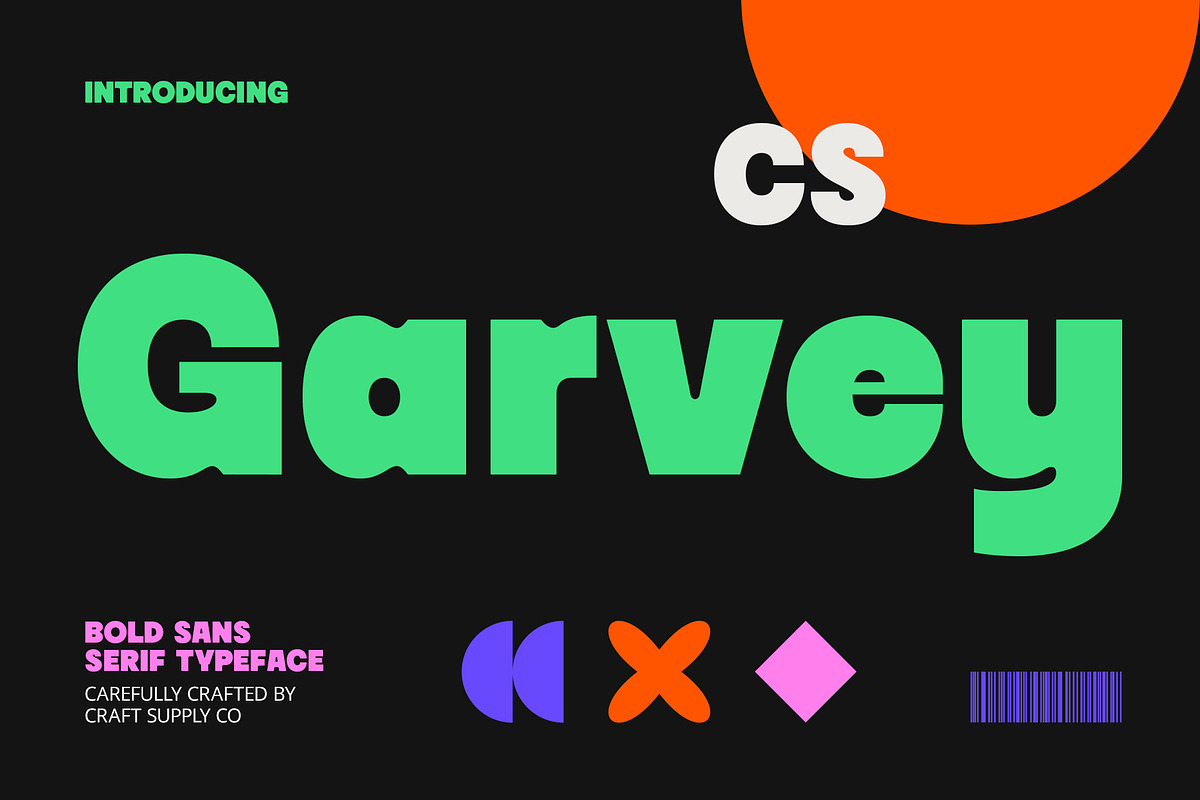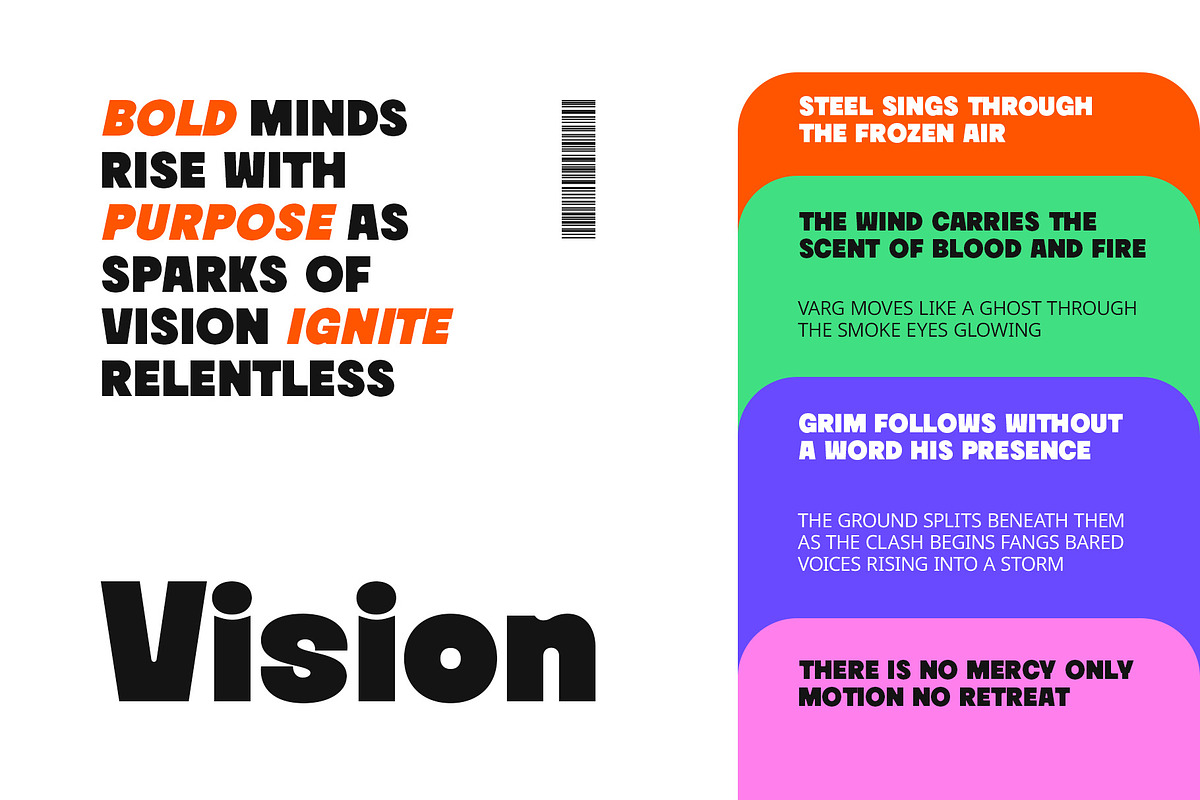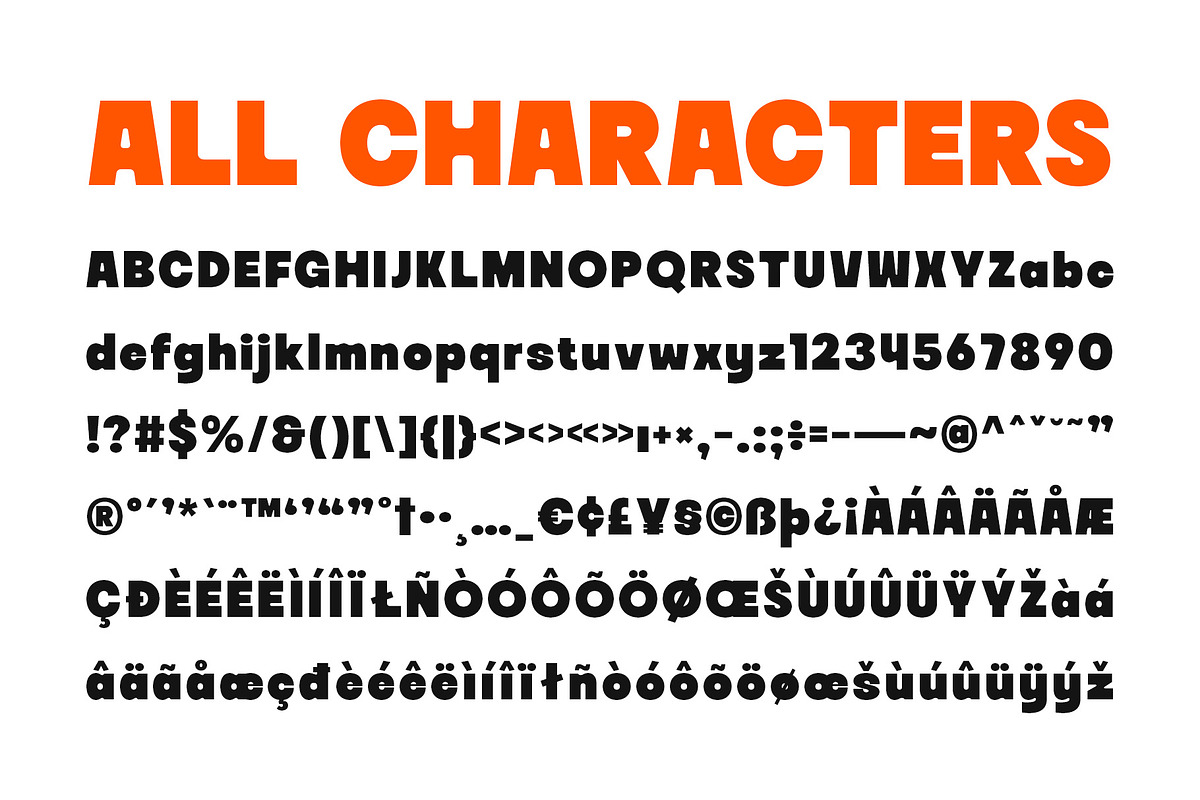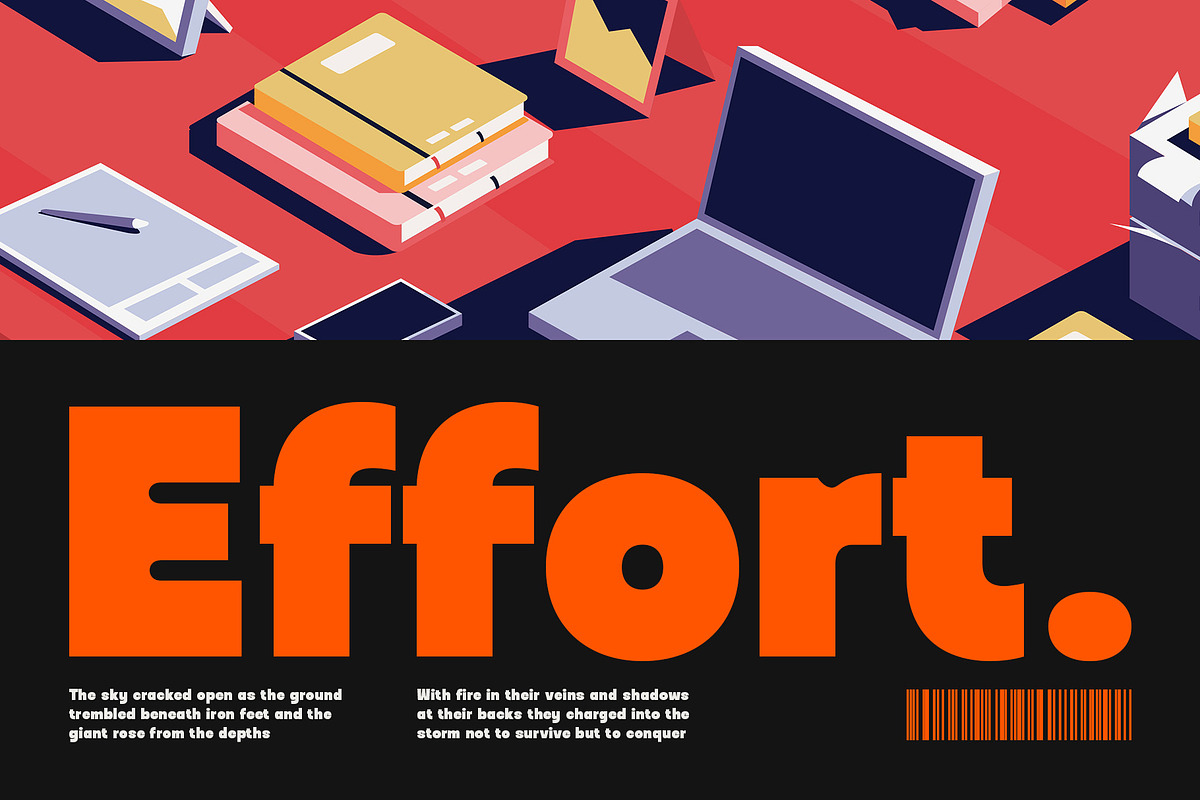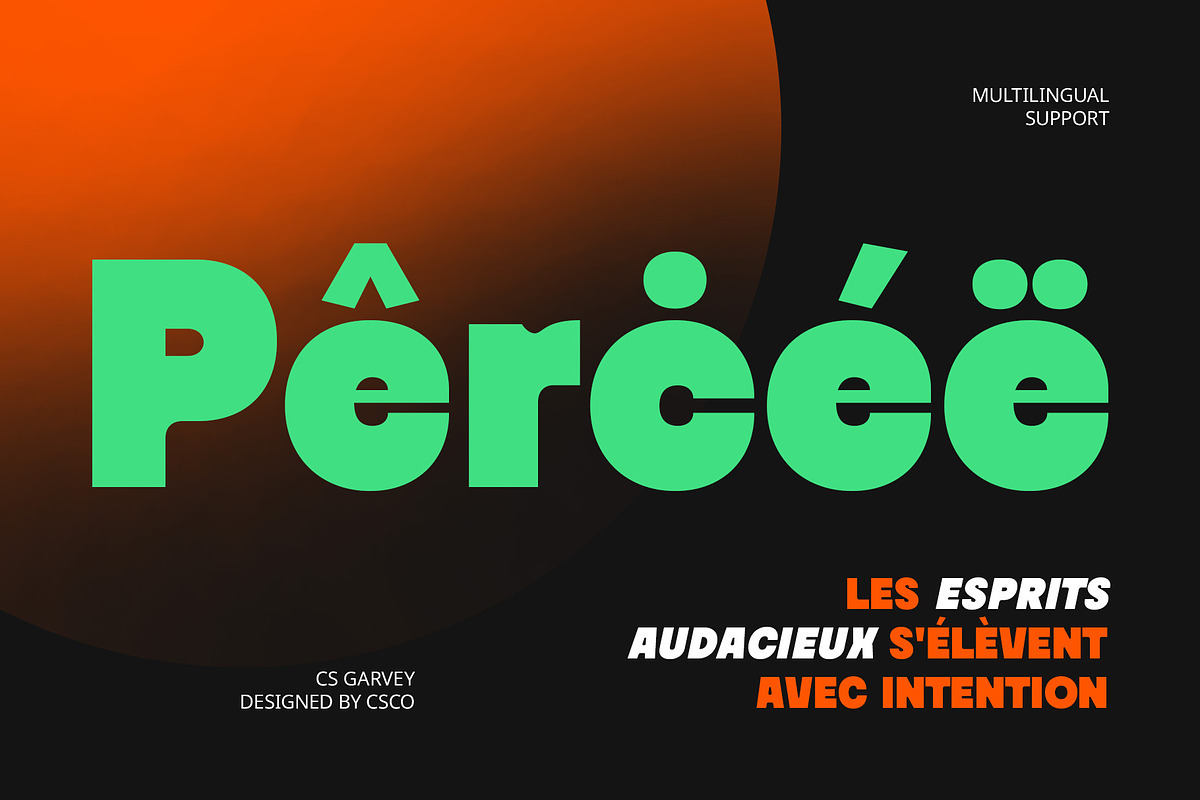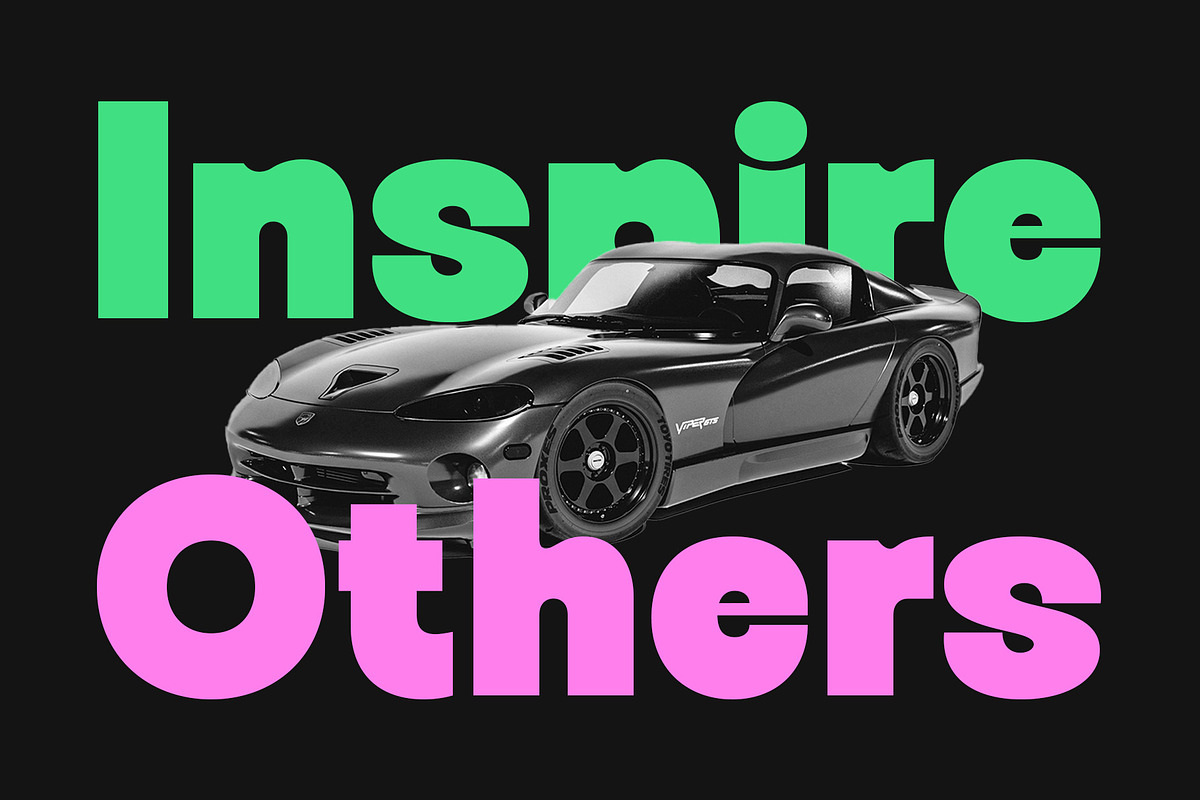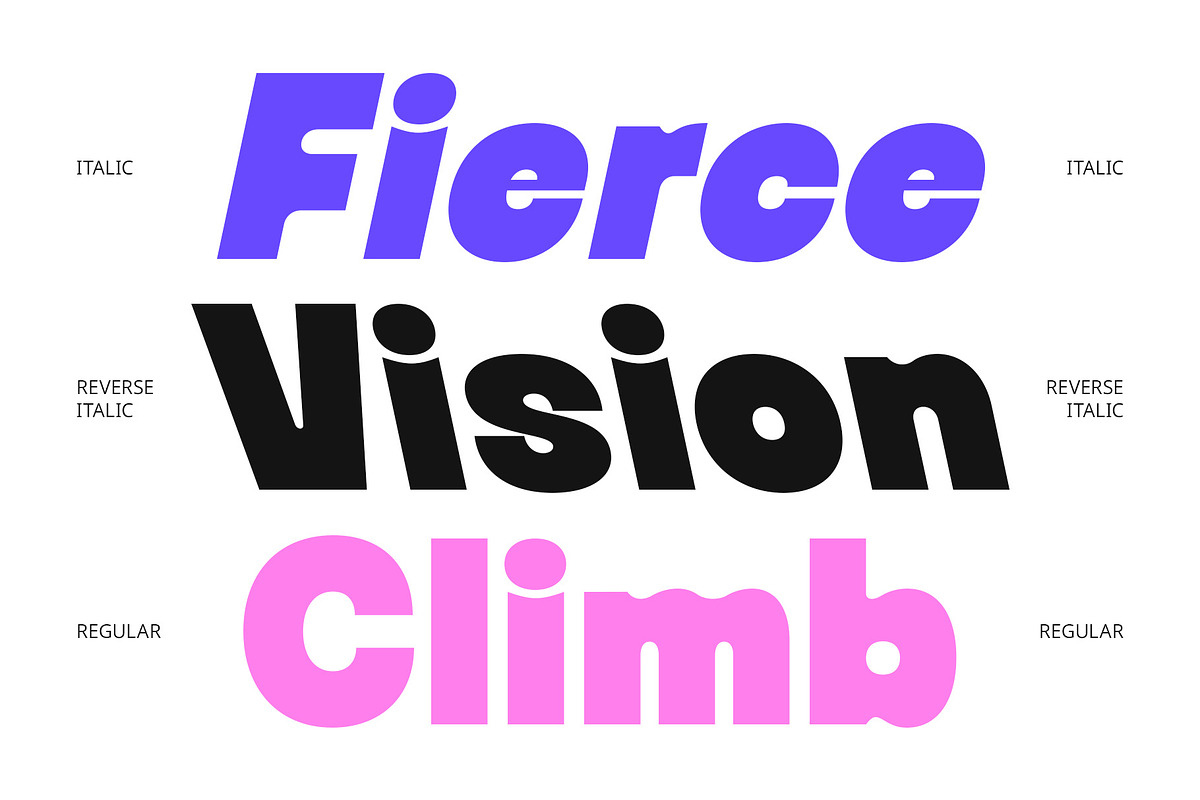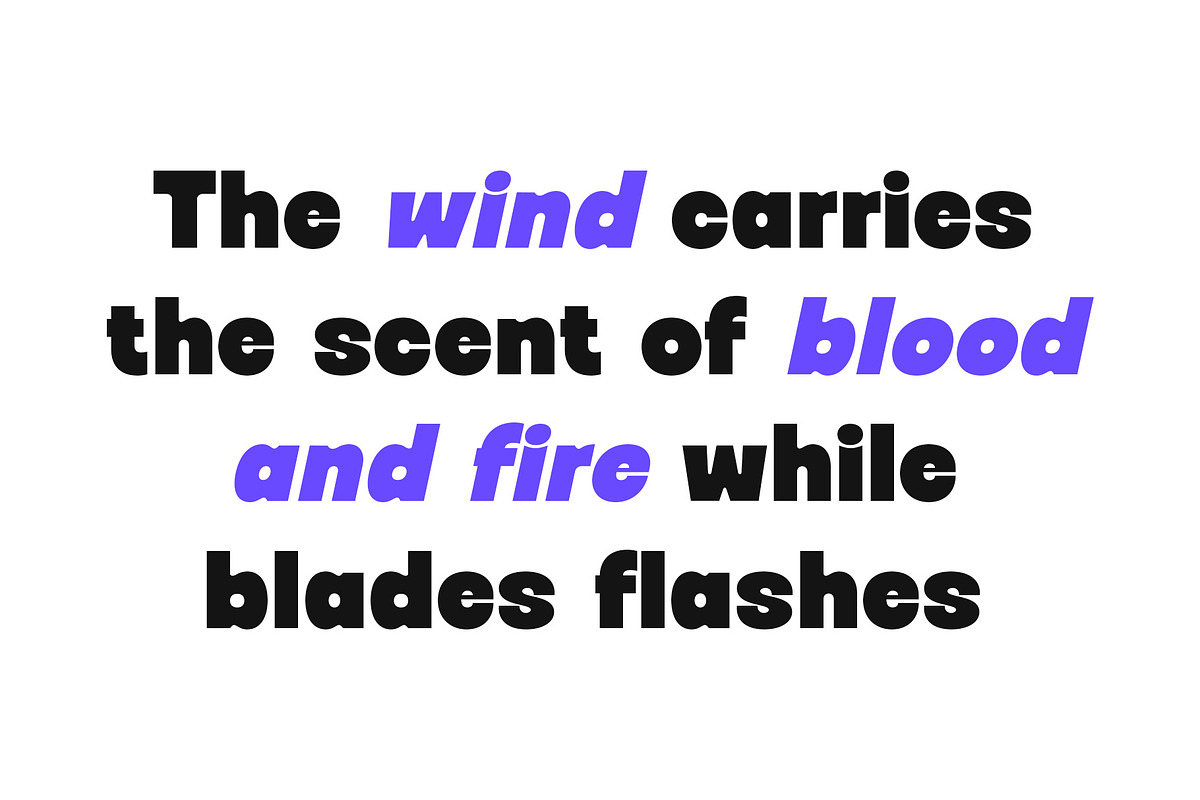
CS Garvey – Bold Font
CS Garvey – A Bold, Playful Modern Sans-Serif Font
Strength Meets Playful Expression CS Garvey is a bold modern sans-serif font that balances geometric precision with a vibrant, energetic personality. Its clean and solid letterforms are grounded in a strong, contemporary structure, offering excellent readability and presence. Its quirky proportions add movement, joy, and uniqueness, distinguishing it from more rigid bold fonts.
Funky Yet Functional Designed with both structure and spontaneity in mind, CS Garvey makes a statement without overwhelming the design. Its playful character doesn’t compromise legibility, making it an ideal choice for headline treatments, logos, or modern branding where both impact and charm are needed. Whether displayed in large sizes or paired with minimalist layouts, it keeps the message bold, lively, and contemporary.
Perfect for Youthful, Creative Projects This font thrives in youth-driven and expressive visual environments—from posters and editorial layouts to fashion branding, product packaging, and digital content for social platforms. Its fun yet balanced design offers the perfect tone for projects that aim to be modern, joyful, and highly engaging.
A Confident Voice With Personality CS Garvey isn’t just bold—it’s bold with a purpose. It’s the typeface that helps your designs stand out with confidence, friendliness, and character. Whether you’re launching a trendy lifestyle brand or crafting a striking visual campaign, CS Garvey ensures your typography speaks loudly, clearly, and creatively.